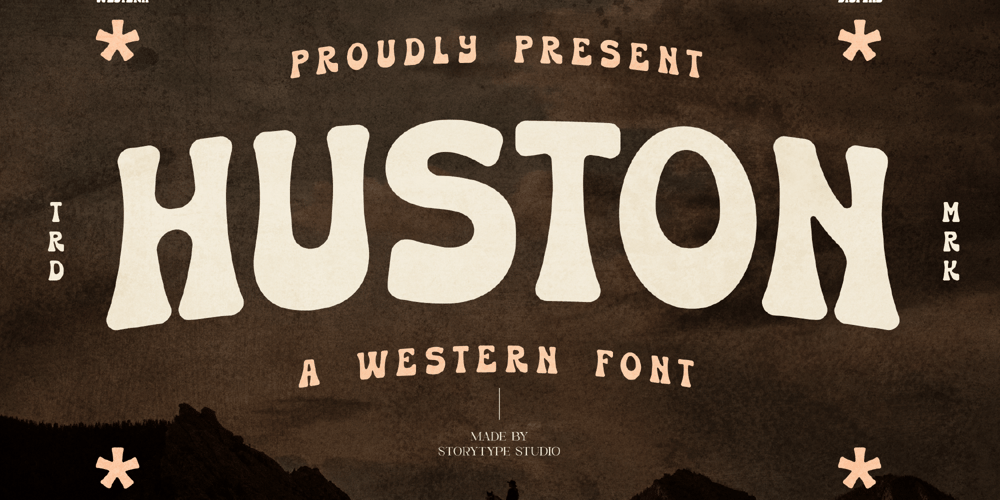
Huston Font Family was designed by Heru Utama Putra and published by Letterena Studios. Huston contains 2 styles and family package options. Proudly present Huston, a modern and classic display font with a unique style and modern look. This typeface is perfect for an elegant & luxury logo, book or movie title design, fashion brand, magazine, clothes, lettering, quotes, and so much more.**Uppercase